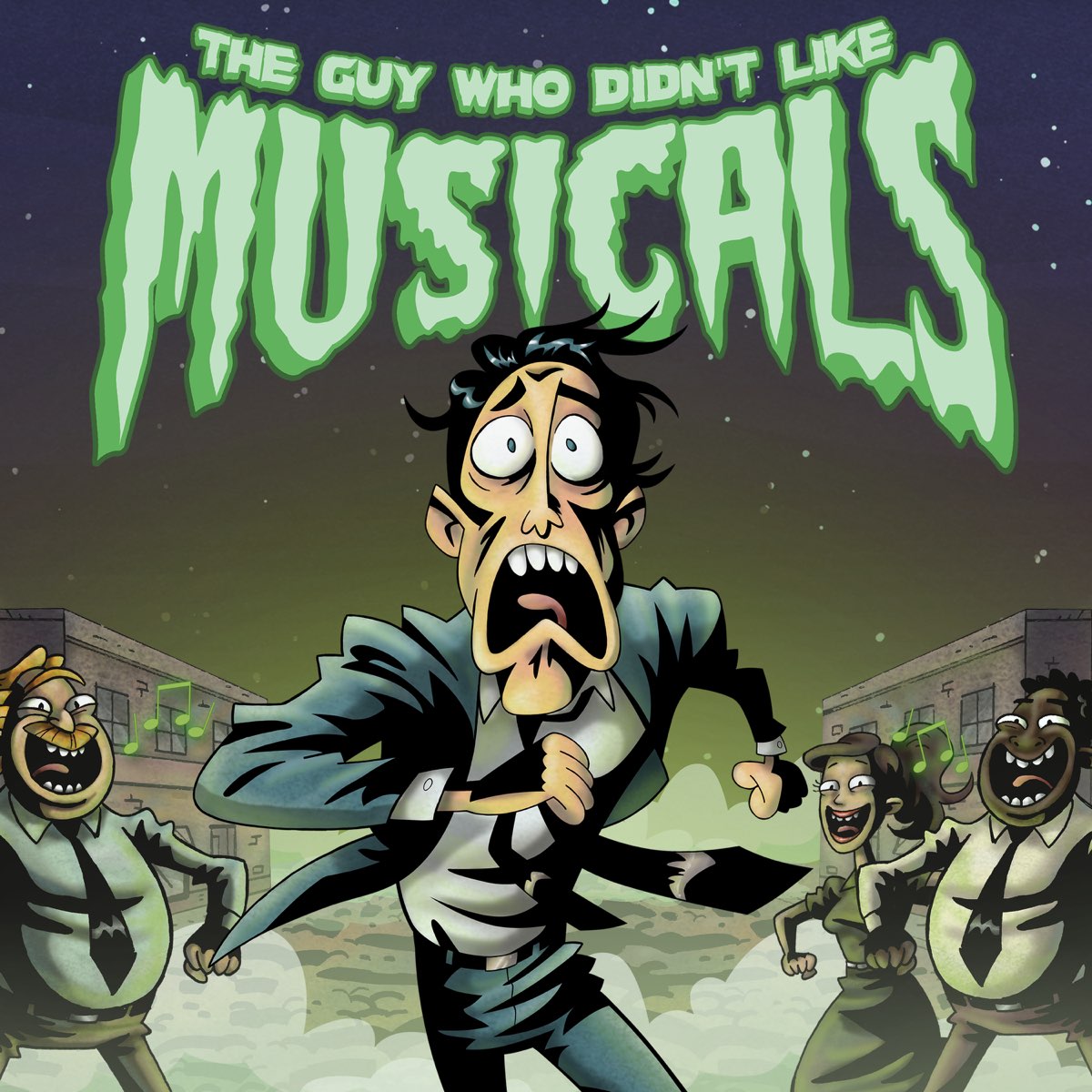
ComedyThe Guy Who Didn’t Like Musicals is a horror comedy musical with music and lyrics by Jeff Blim. It follows the story of a man who hates musicals but finds himself stuck in a world where everyone breaks into song and dance.
For its logo, the stage production employs two distinct fonts: "Massacre" by Norfok Incredible Font Design, which draws inspiration from the title lettering of The Texas Chainsaw Massacre 2, and "Green Fuz" by Typodermic Fonts. While Massacre's demo version only includes capital letters, both fonts contribute to the show's distinct visual style and can be downloaded for free from the Fonts Used Section.